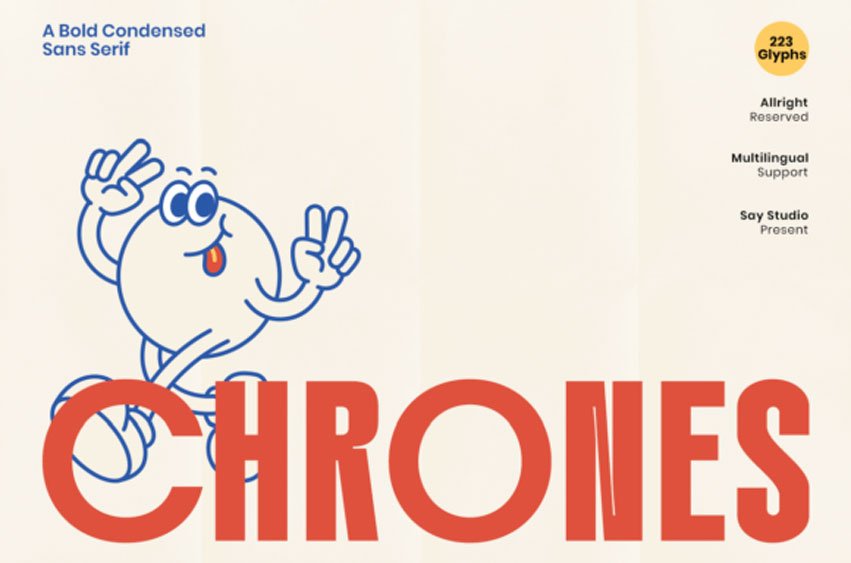
Chrones Font
Chrones Font is a bold condensed sans serif font built to command attention. With its tall structure, powerful weight, and clean geometric construction, Chrones is designed for creators who need typography that speaks loudly and clearly.
Whether you’re crafting impactful branding, energetic posters, sports campaigns, editorial headlines, or modern advertising visuals, this font delivers a strong visual punch with effortless readability.